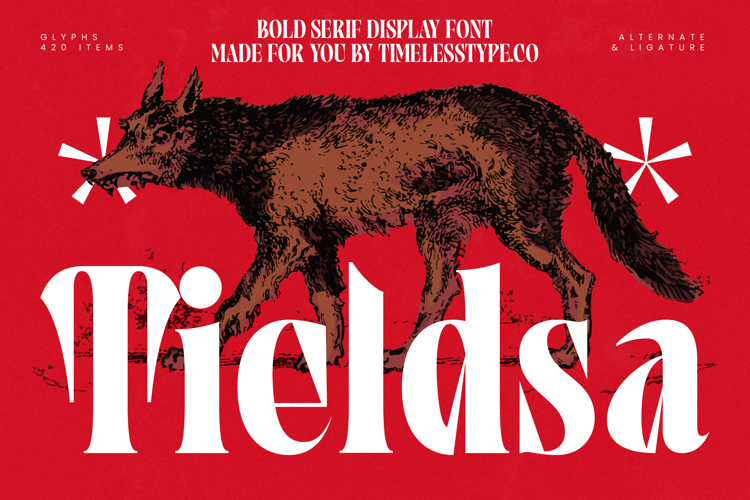
Tieldsa - Bold Serif Display Font
Unleash unparalleled elegance with Font Tieldsa - Bold Serif Display Font Serif Display, a typeface meticulously crafted to command attention. This bold serif display font epitomizes a striking balance between classic sophistication and modern flair, featuring high-contrast strokes and distinctive serifs that exude confidence. Its powerful presence is designed for designers seeking a truly timeless and impactful visual statement that resonates with luxury and gravitas.
Elevate your design projects with Font Tieldsa - Bold Serif Display Font Serif Display's inherent charm and adaptability. The generous curves and robust forms create an inviting yet authoritative aesthetic, perfect for captivating impactful headlines and aspirational branding. With its rich set of alternates and ligatures, this font provides boundless creative opportunities, allowing you to craft a truly unique and memorable presence across various mediums. Its versatility makes it an indispensable asset.
Expand your creative reach effortlessly with Font Tieldsa - Bold Serif Display Font Serif Display's comprehensive global capabilities. With its extensive multilingual support, Font Tieldsa - Bold Serif Display Font Serif Display adapts seamlessly across global markets, making it incredibly versatile for international projects. This crucial feature ensures your message transcends language barriers while maintaining its sophisticated appeal and distinctive identity, connecting with audiences worldwide.
Discover the perfect design partner for your most prestigious ventures. Font Tieldsa - Bold Serif Display Font Serif Display is ideal for luxury branding, high-end packaging, editorial design, fashion spreads, and exclusive event invitations. Its sophisticated character makes it perfect for magazine layouts, website headers, and any application requiring a strong yet refined typographic voice. Choose Font Tieldsa - Bold Serif Display Font Serif Display to ensure your brand always leaves a lasting impression.